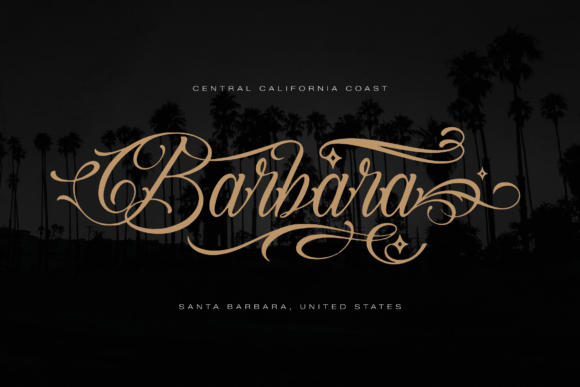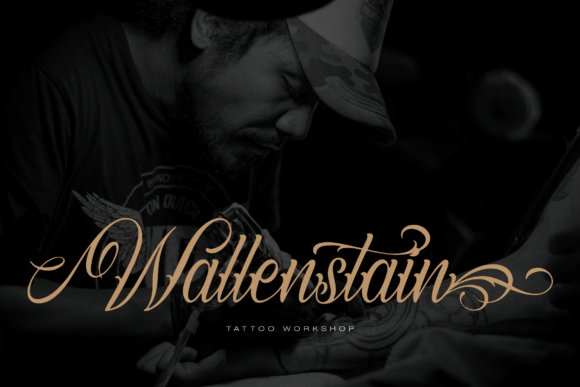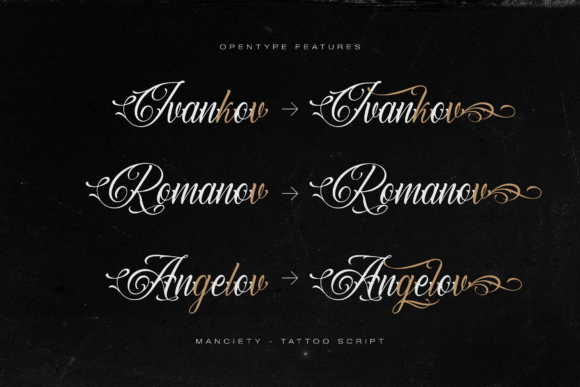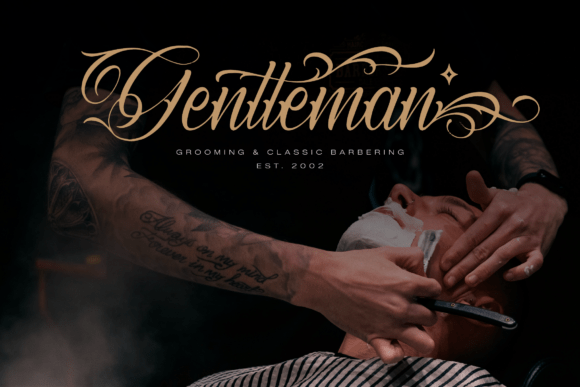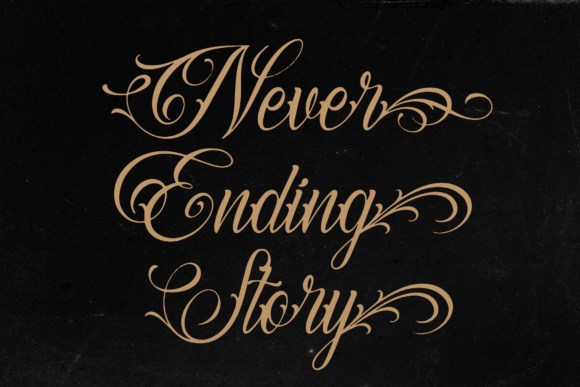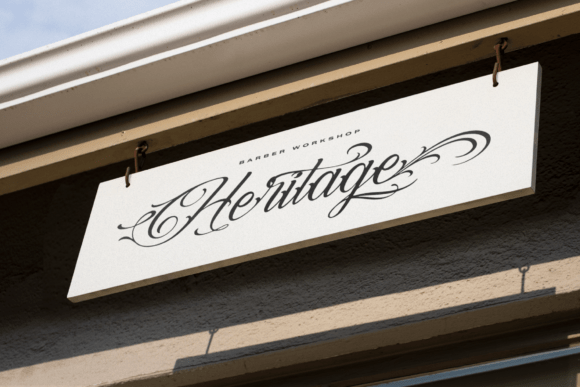
Introduction to Manciety Font Font
Fonts play a crucial role in design, and the Manciety Font font is a typeface that brings both character and versatility to any project. Whether you’re working on a branding project, a website, or a print design, the Manciety Font font offers a unique style that can elevate your work.
Command authority and timeless style with Manciety, a premium script tattoo font.
This typeface is a masterpiece of calligraphic precision, featuring high-contrast strokes and dramatic, sweeping flourishes that evoke the rebellious elegance of classic βChicanoβ style lettering Manciety offers unparalleled versatility for high-end branding.
Key Features of Manciety Font Font
Why Choose Manciety Font Font?
The Manciety Font font is more than just a typeface β it’s a design tool that helps you communicate your message with style and clarity. Its unique character set and versatile design make it suitable for a wide range of applications, from elegant invitations to bold headlines.
With its carefully crafted letterforms and balanced proportions, the Manciety Font font ensures readability and visual appeal across all mediums.
What makes Manciety Font font special?
The Manciety Font font stands out with its unique design, exceptional readability, and versatility across various design applications.